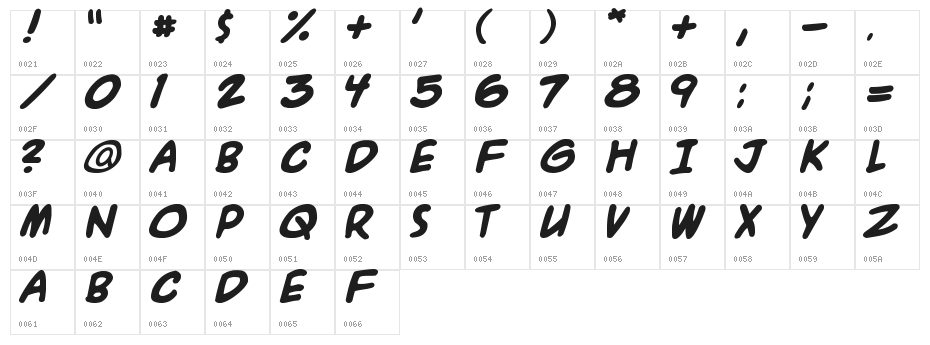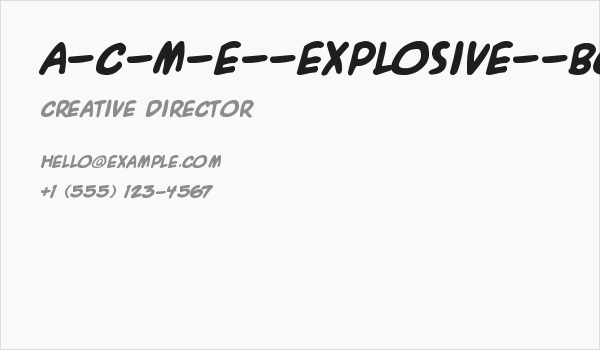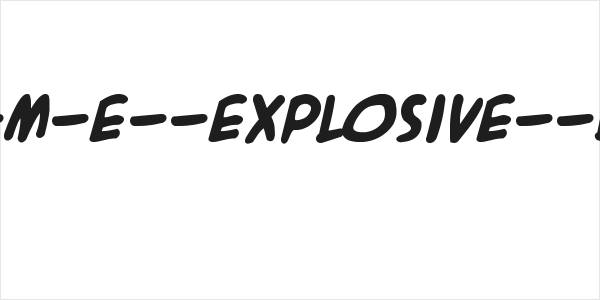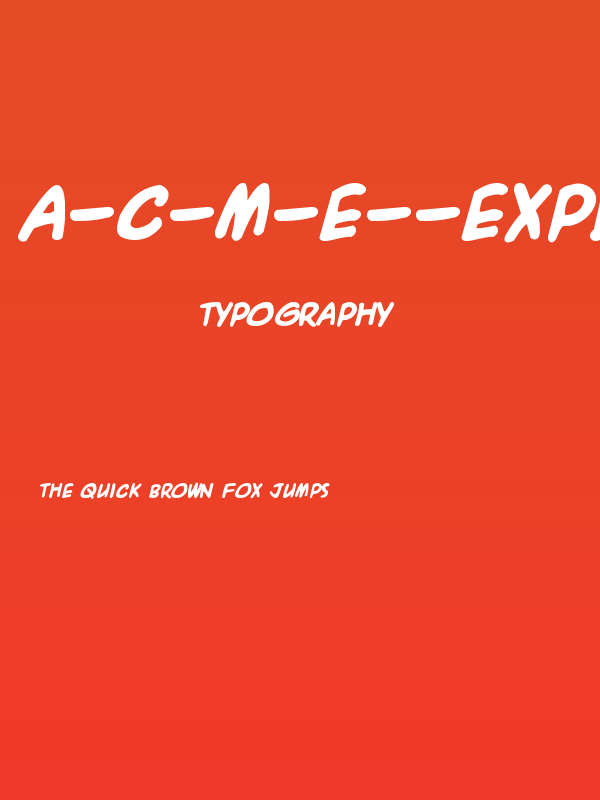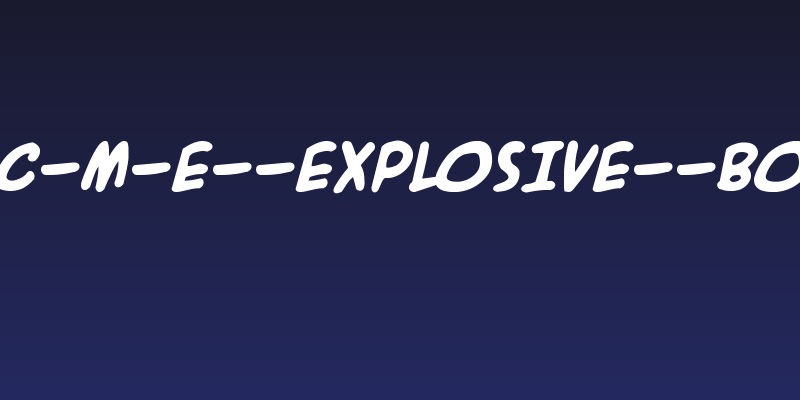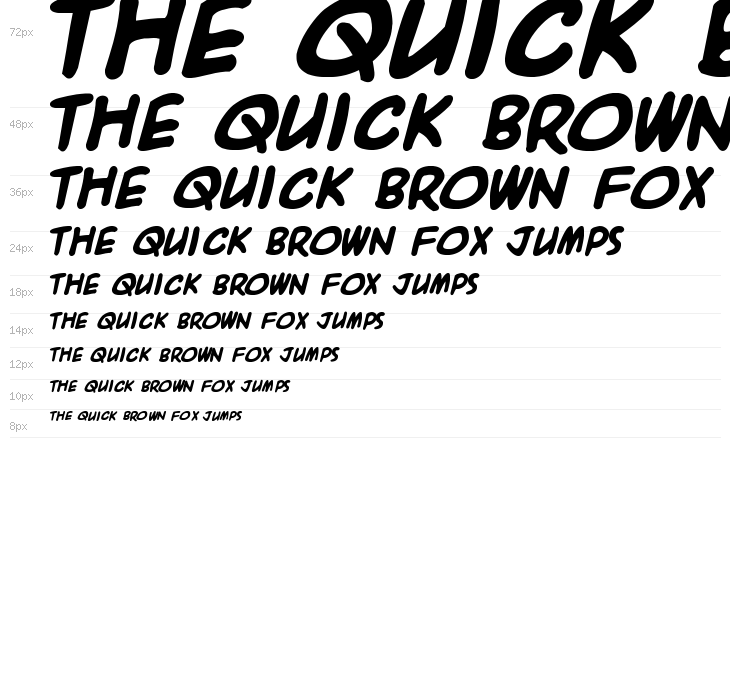
A-C-M-E--Explosive--Bold Font
A-C-M-E--Explosive--Bold Description
This bold and dynamic font features a playful and energetic style, characterized by its thick, rounded strokes and slightly slanted letterforms. The uppercase and lowercase letters maintain a consistent weight, creating a sense of uniformity and balance. The numbers and special characters are equally bold, ensuring readability and impact. The font exudes a sense of fun and creativity, making it ideal for projects that require a lively and engaging aesthetic. Its boldness and unique style make it stand out, perfect for capturing attention.
| Overall Style | Playful, Energetic |
| Proposed Projects | Ideal for branding, posters, children's books, and playful graphic designs. |